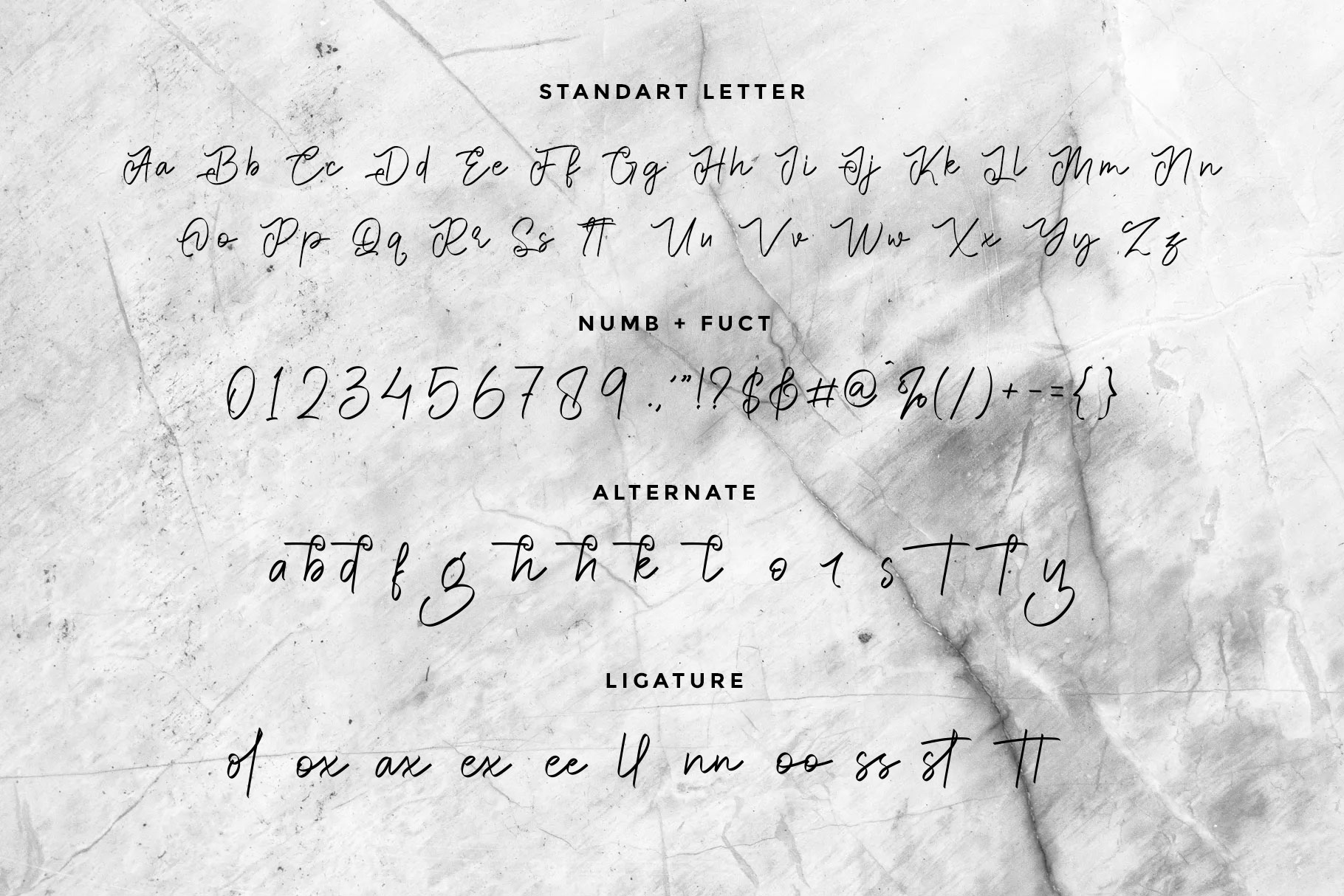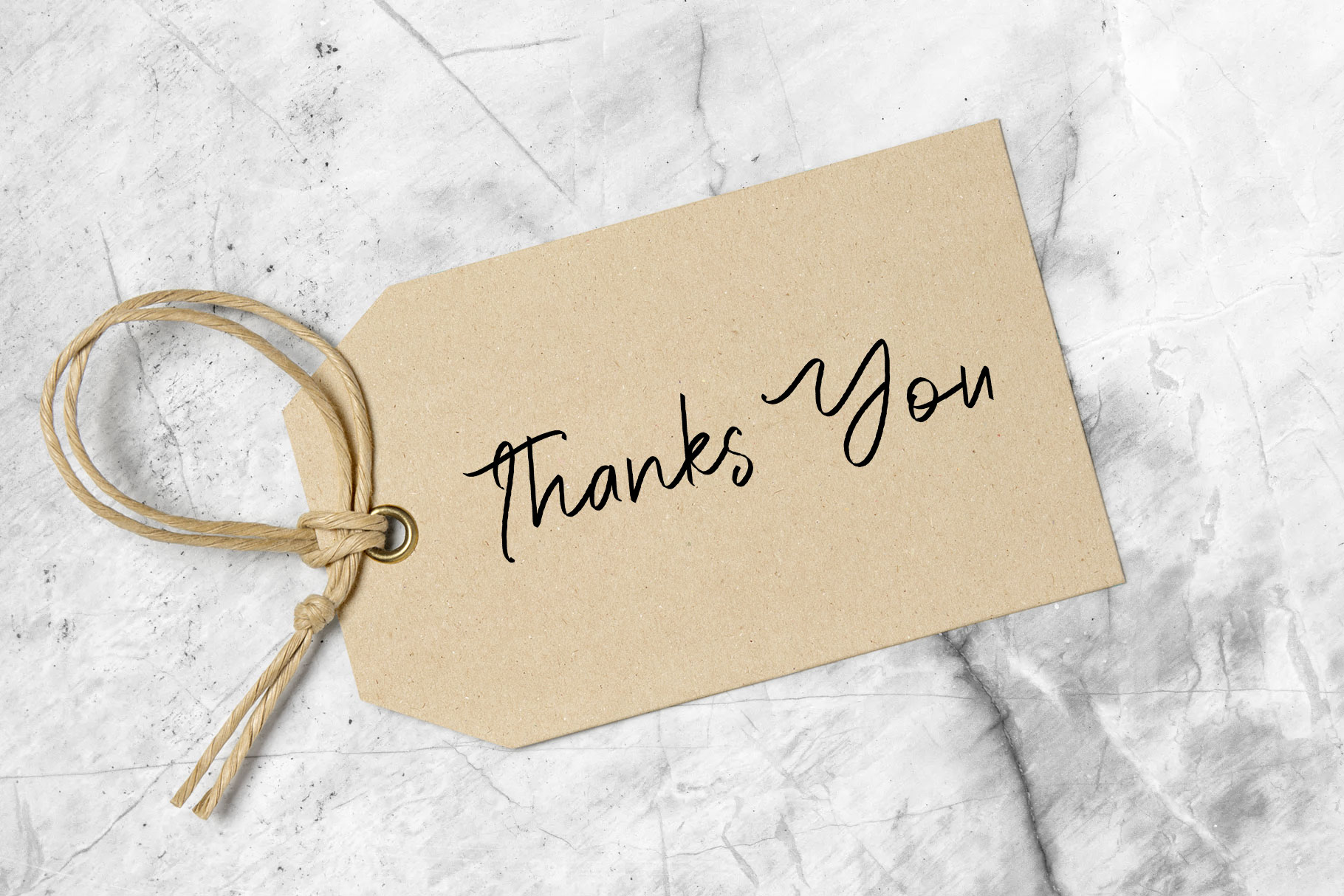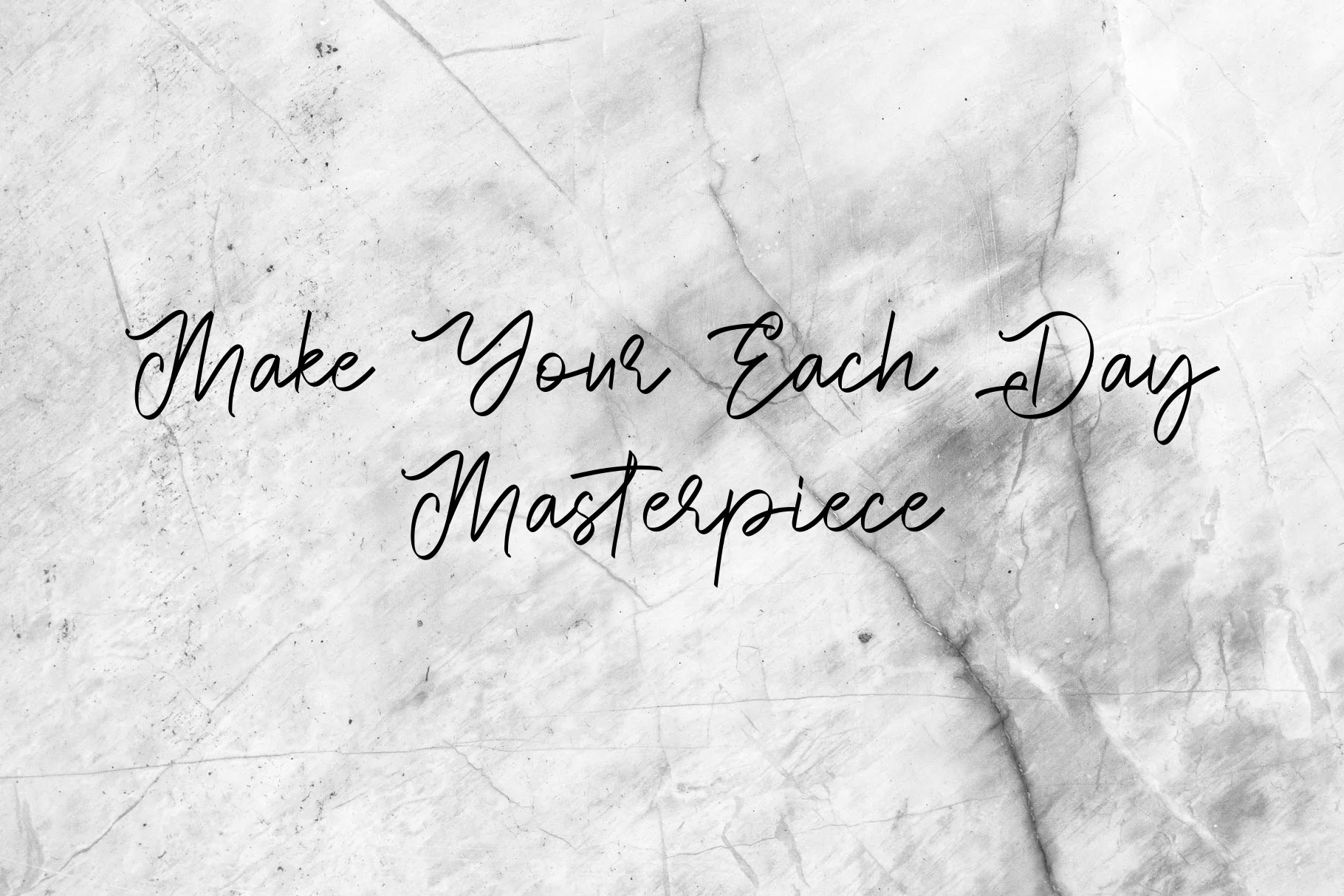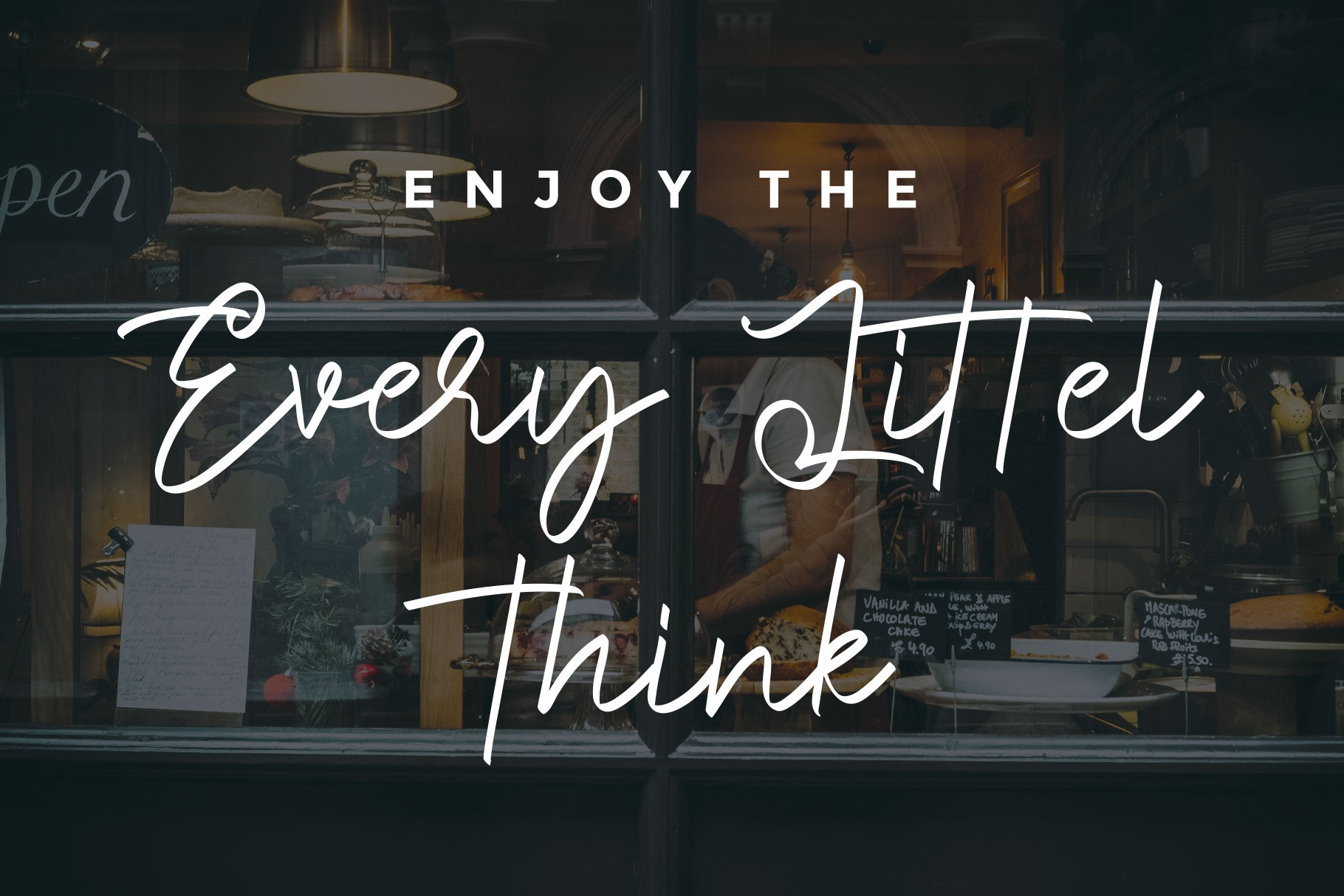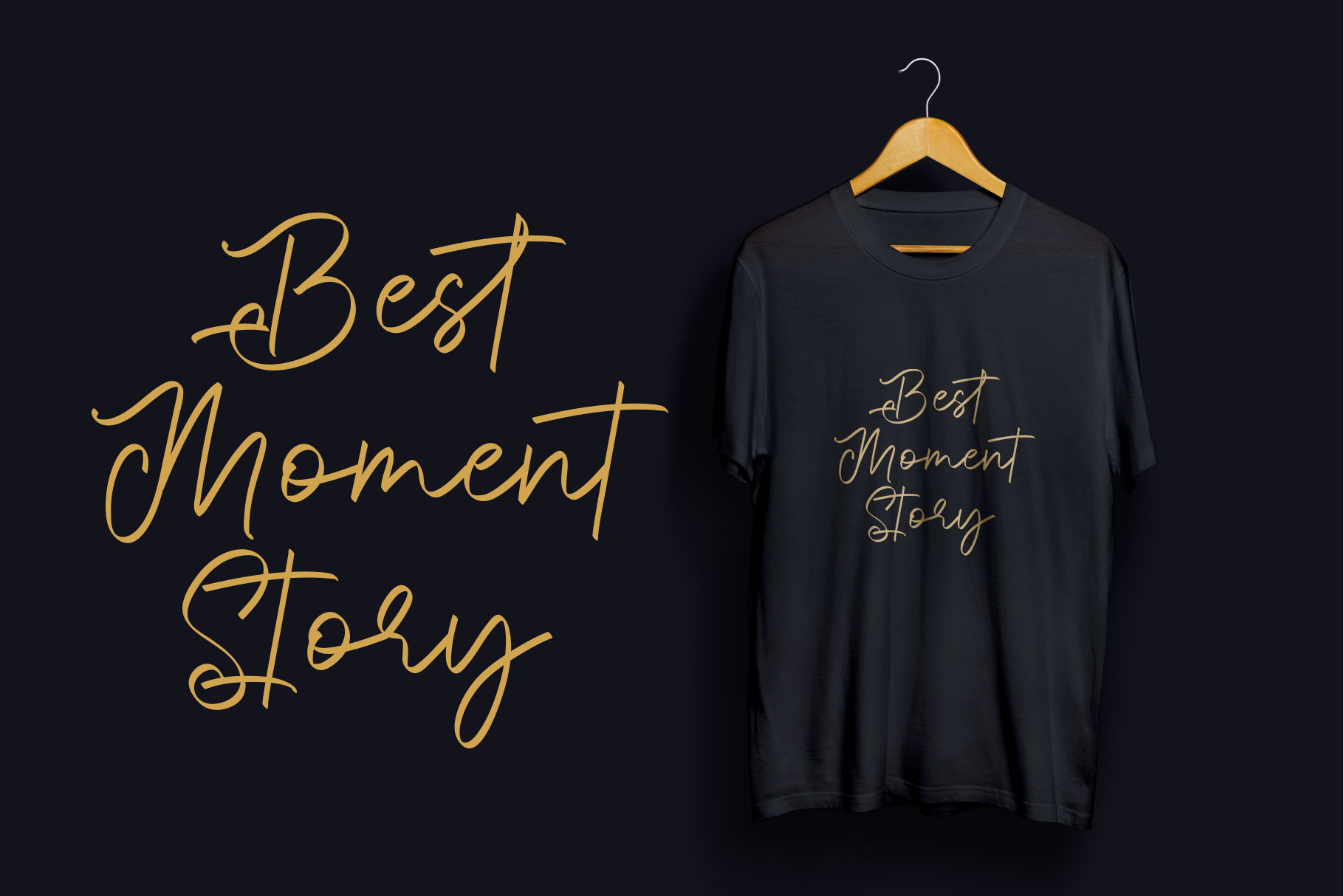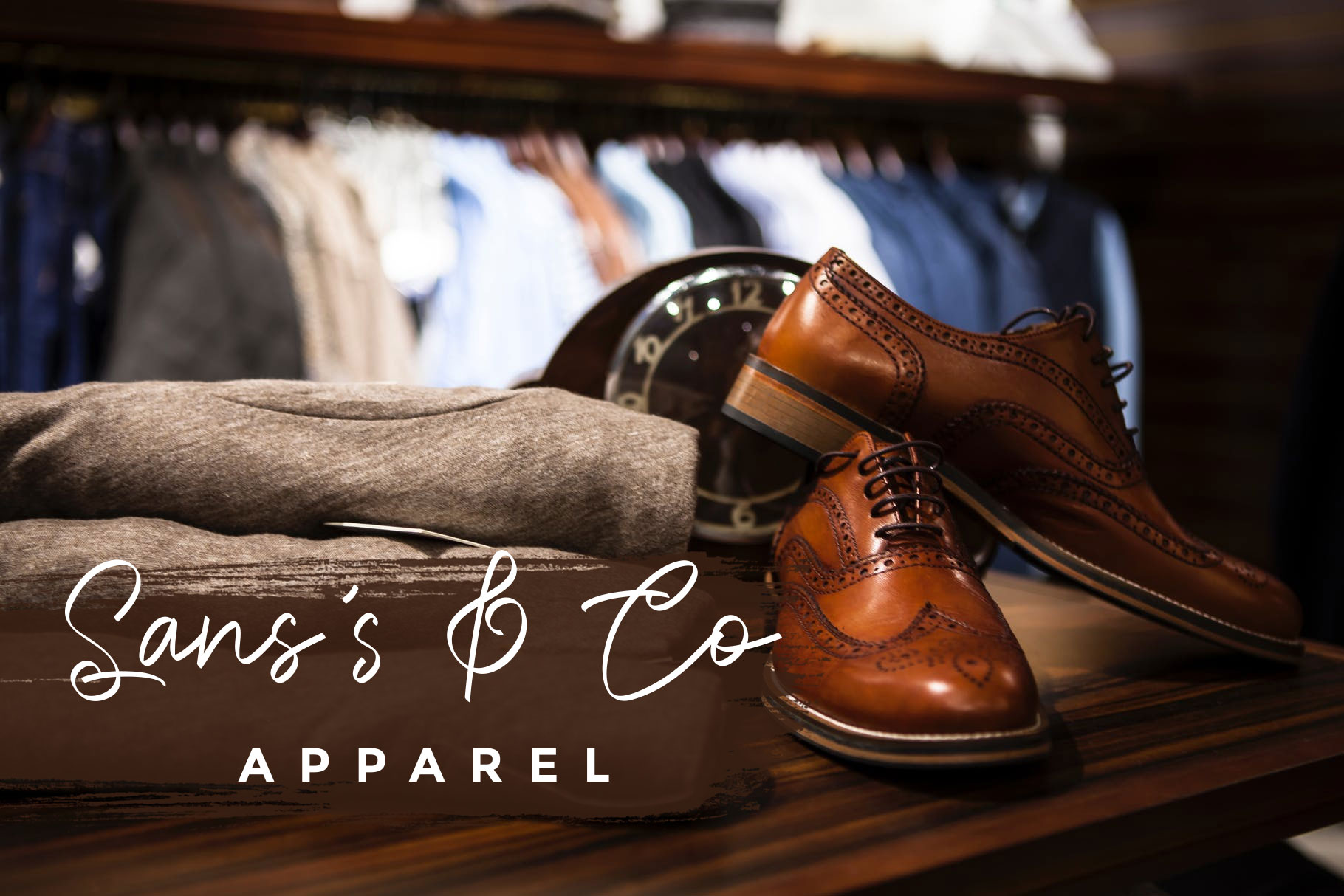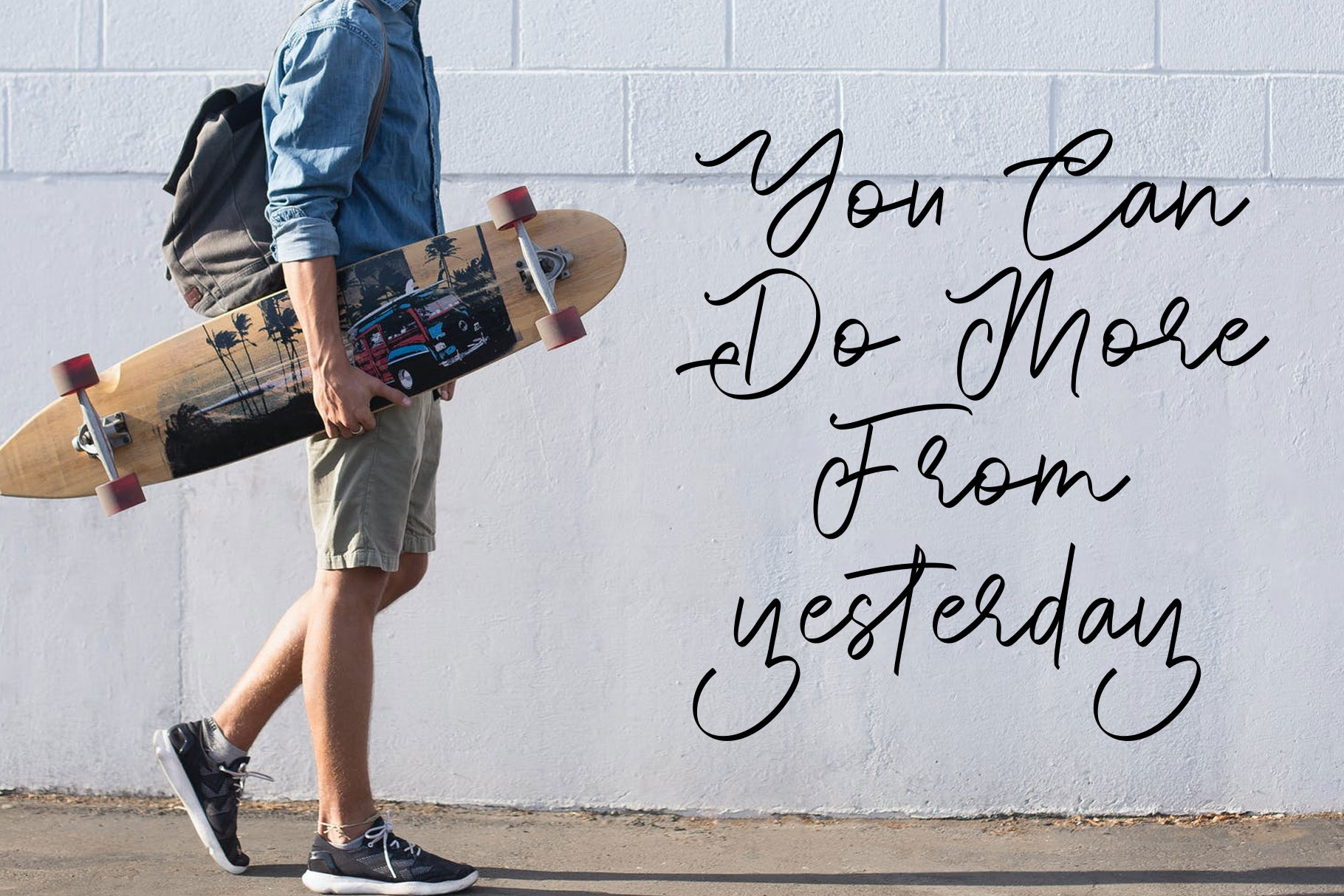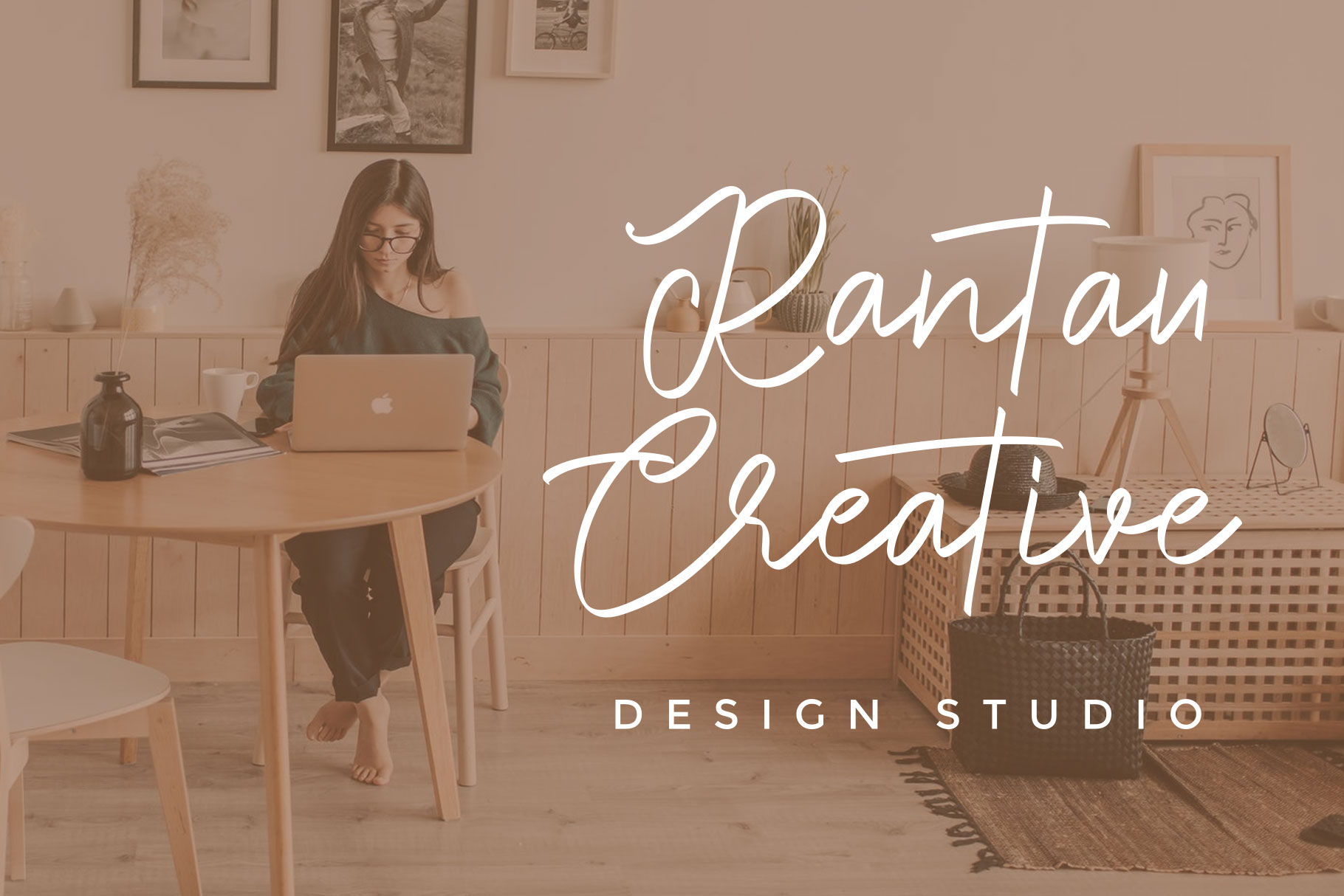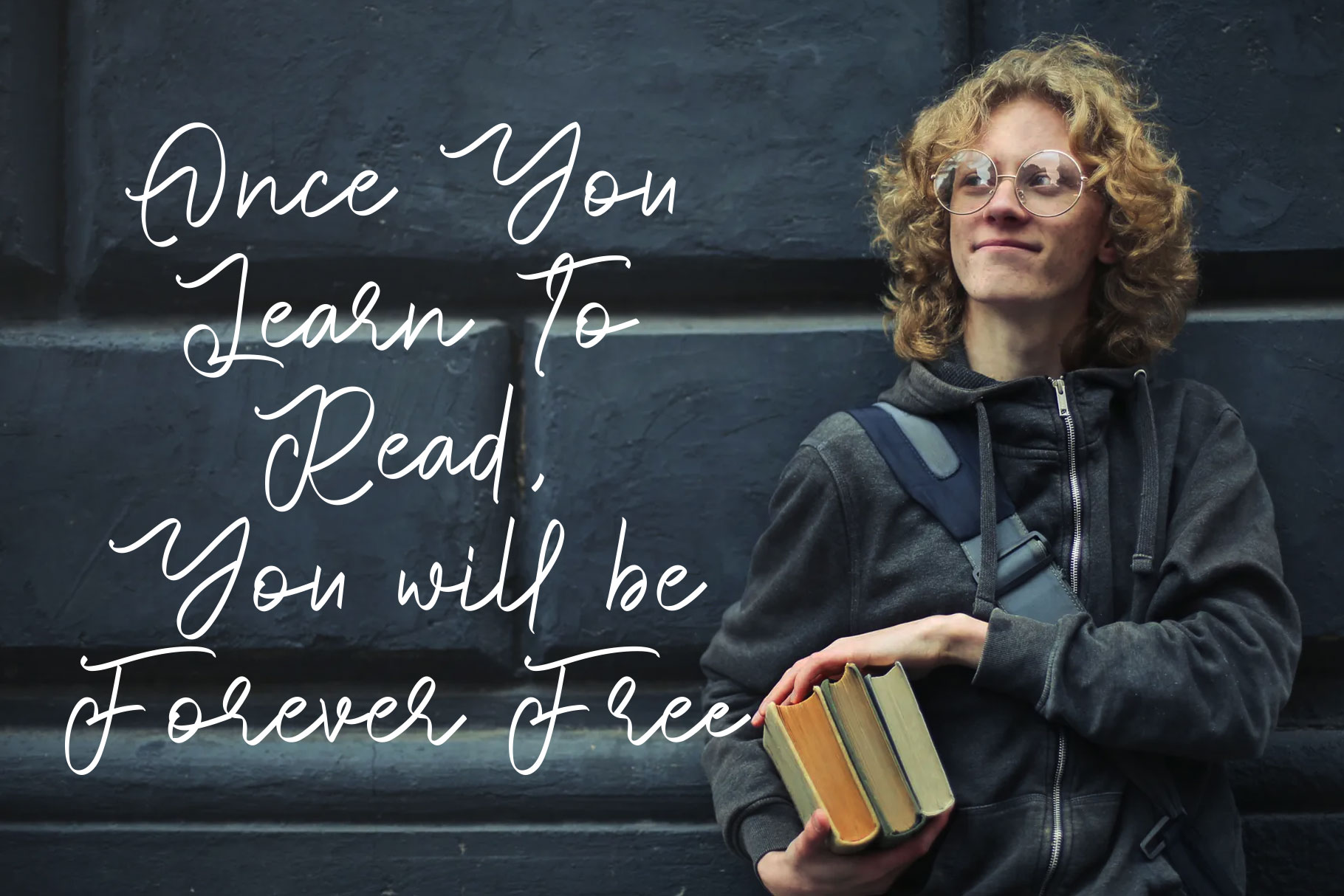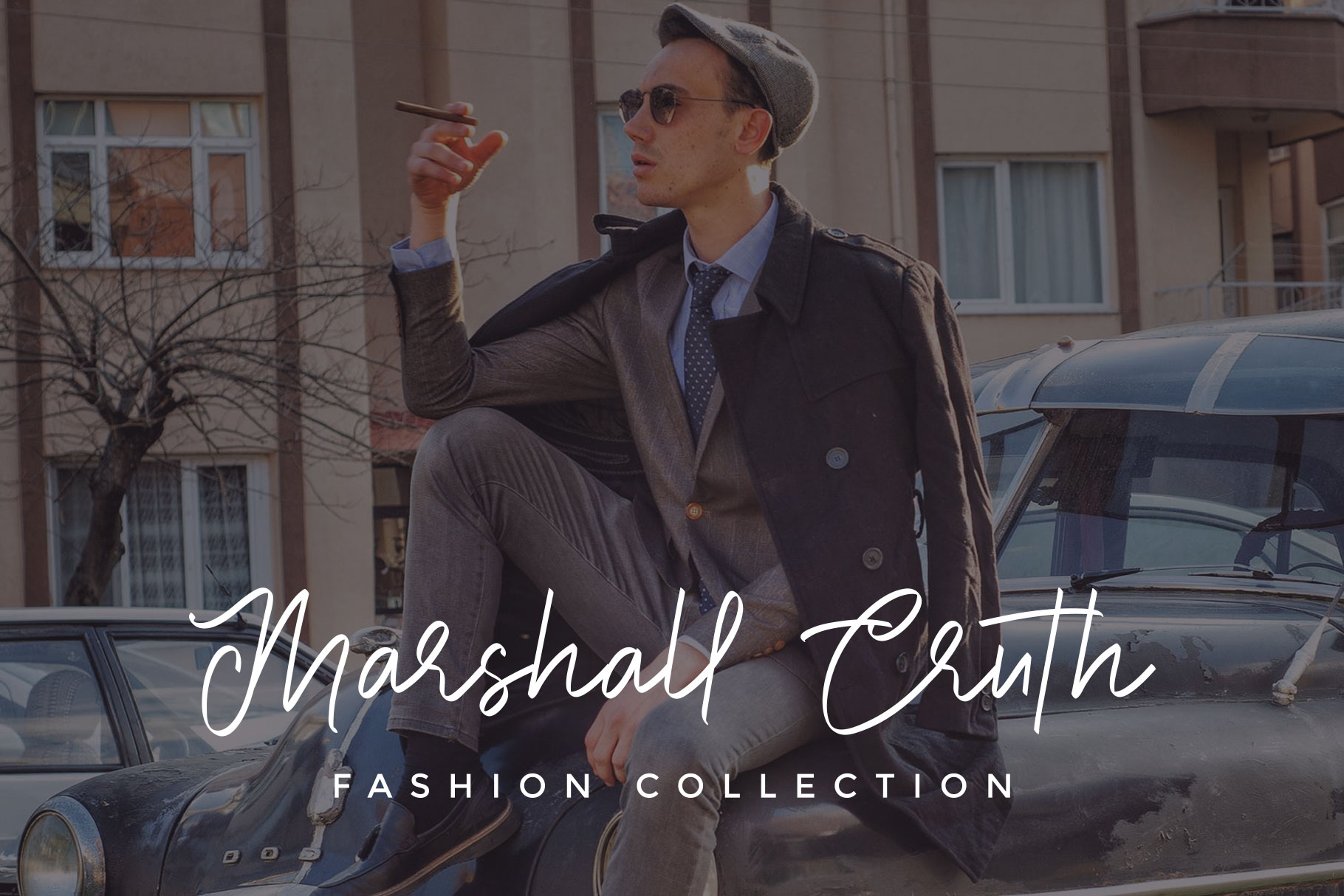
Bright Hoston authentic Font
Bright Hoston is modern style which can be interpreted professional. we keep this font looks modern, readable, stylish, catchy and easy to use. Bright Hoston is the great choice for watermark on photography, signature or signature logo design, quotes, album cover, business card and many other design project.Bright Hoston is here to make your work to high level!!!
• Basic Latin A-Z and a-z